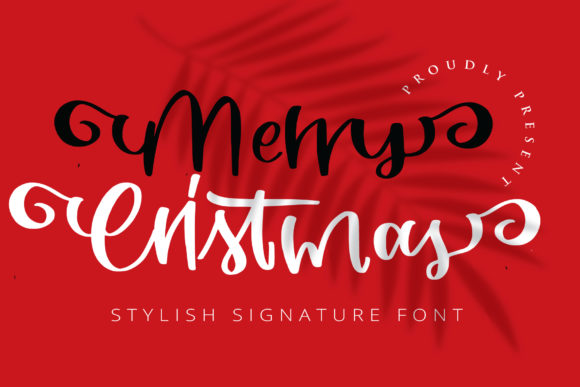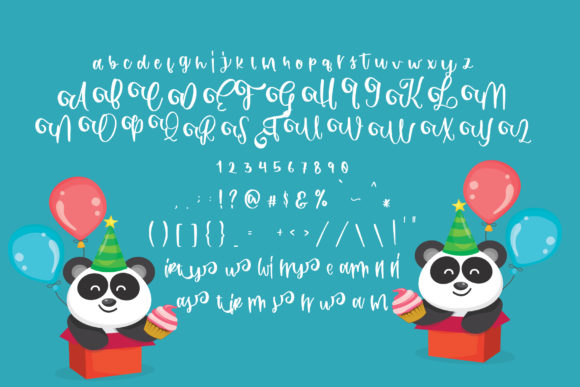
Introducing Happy Birthday Font: Add a Touch of Whimsy to Your Designs
Are you looking for a font that exudes childlike playfulness and fun? Look no further than the Happy Birthday font! This delightful handwritten font is perfect for designers and crafters who want to add a touch of whimsy to their projects. In this article, we’ll dive into the features and benefits of the Happy Birthday font, and explore how you can use it to brighten up your designs.
What is Happy Birthday Font?
Happy Birthday is a fun and friendly handwritten font that’s perfect for kids and school projects. Its childlike playfulness makes it an excellent choice for designs that require a lighthearted and carefree touch. The font is designed to be highly versatile, making it suitable for a wide range of applications, from party invitations and greeting cards to posters and educational materials.
Key Features of Happy Birthday Font
• PUA Encoding: The Happy Birthday font is PUA (Private Use Area) encoded, which means you can access all the glyphs and swashes with ease. This feature makes it simple to get creative with your designs and add a personal touch.
• Handwritten Style: The font boasts a beautiful, handwritten style that’s perfect for adding a touch of personality to your designs.
• Childlike Playfulness: The Happy Birthday font is designed to evoke a sense of fun and playfulness, making it perfect for kids and school projects.
Benefits of Using Happy Birthday Font
So, why should you choose the Happy Birthday font for your designs? Here are just a few benefits:
• Ease of Use: The font is incredibly easy to use, even for those who are new to design. The PUA encoding makes it simple to access all the glyphs and swashes, so you can focus on creating.
• Versatility: The Happy Birthday font is highly versatile, making it suitable for a wide range of applications, from digital designs to print materials.
• Uniqueness: The font’s childlike playfulness and handwritten style ensure that your designs will stand out from the crowd.
How to Use Happy Birthday Font in Your Designs
Using the Happy Birthday font in your designs is easy! Here are a few ideas to get you started:
• Party Invitations: Create custom party invitations that set the tone for a fun and festive celebration.
• Greeting Cards: Design personalized greeting cards for birthdays, holidays, or special occasions.
• School Projects: Add a touch of whimsy to school projects, such as posters, presentations, or worksheets.
• Digital Designs: Use the Happy Birthday font in digital designs, such as social media graphics, blog posts, or email newsletters.
Tips and Tricks for Getting the Most Out of Happy Birthday Font
Here are a few tips and tricks for getting the most out of the Happy Birthday font:
• Experiment with Colors: Don’t be afraid to experiment with different colors and color combinations to add an extra layer of fun to your designs.
• Mix and Match: Combine the Happy Birthday font with other fonts or graphics to create a unique and eye-catching design.
• Play with Swashes: Take advantage of the font’s PUA encoding and play with the swashes and glyphs to add a personal touch to your designs.